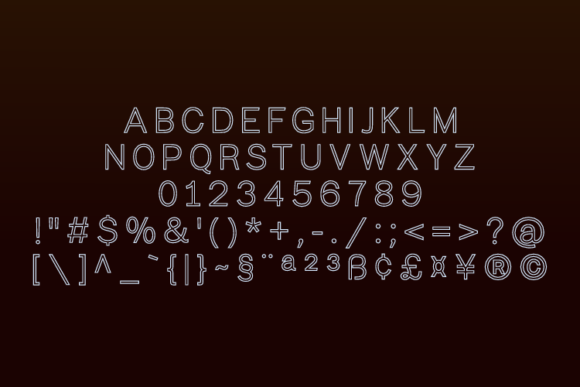
Introduction to Nextart Outline Medium Font
Nextart Outline is a fancy, contemporary sans serif font.
In addition to its well-balanced weight distribution, it delivers a touch of elegance which is further emphasized by the carefully adjusted alternates and ligatures .
Key Features of Nextart Outline Medium Font
Why Choose Nextart Outline Medium Font?